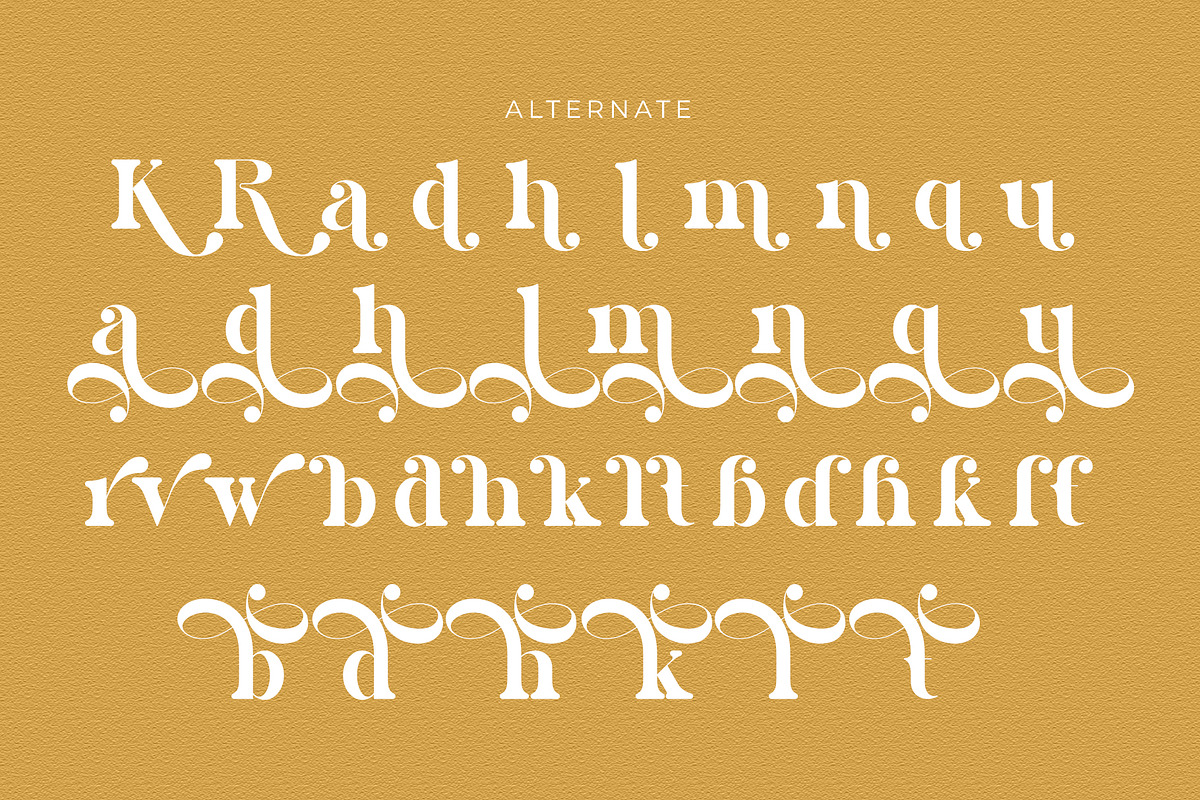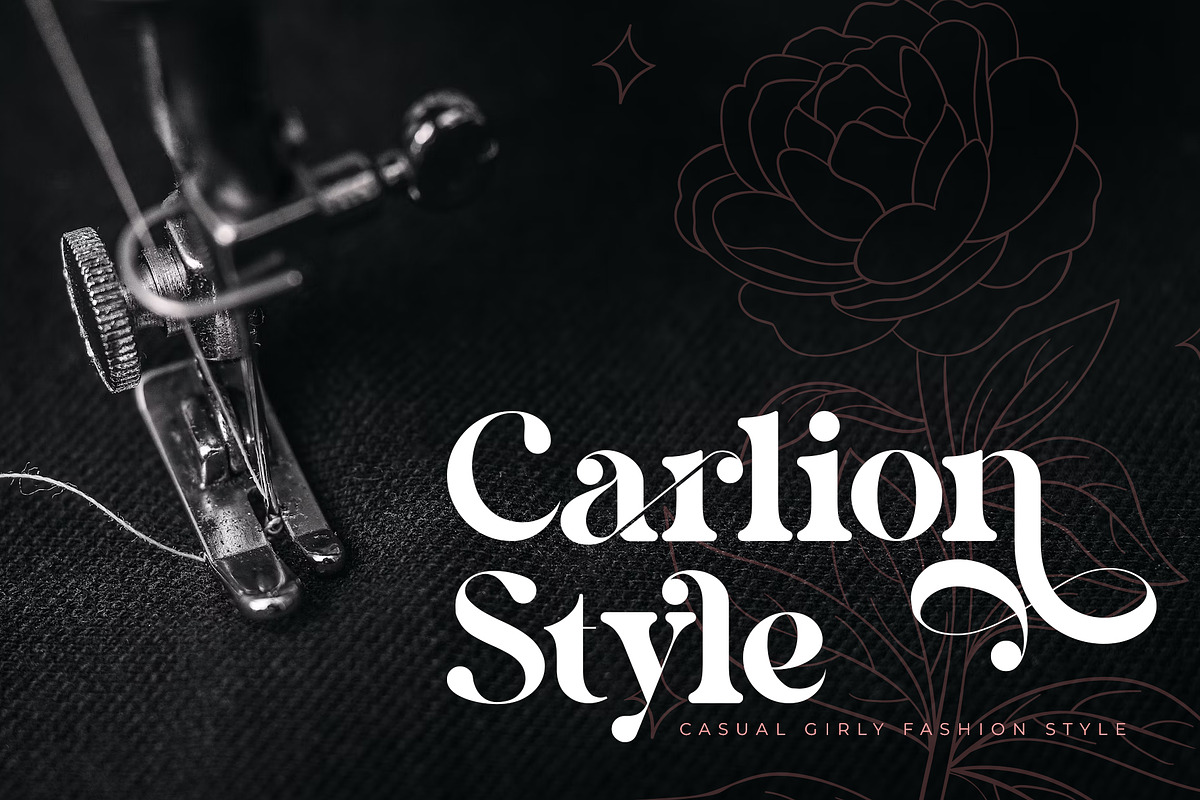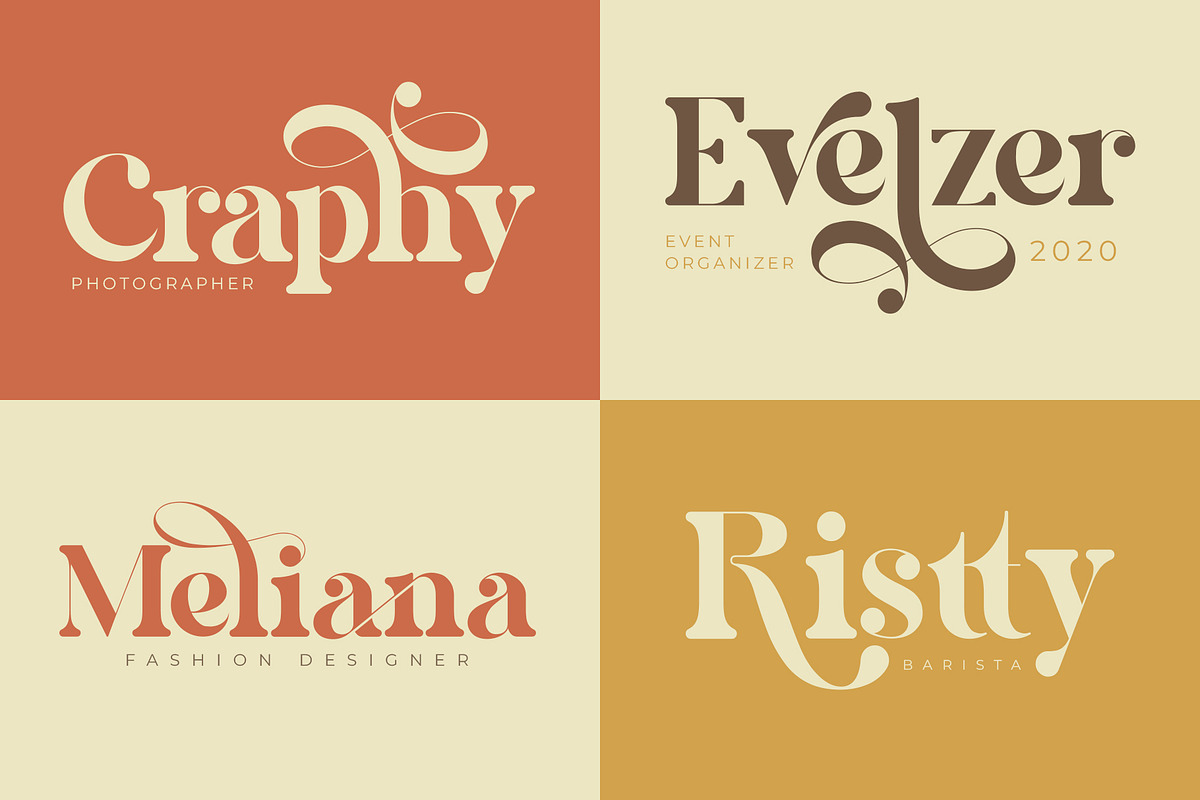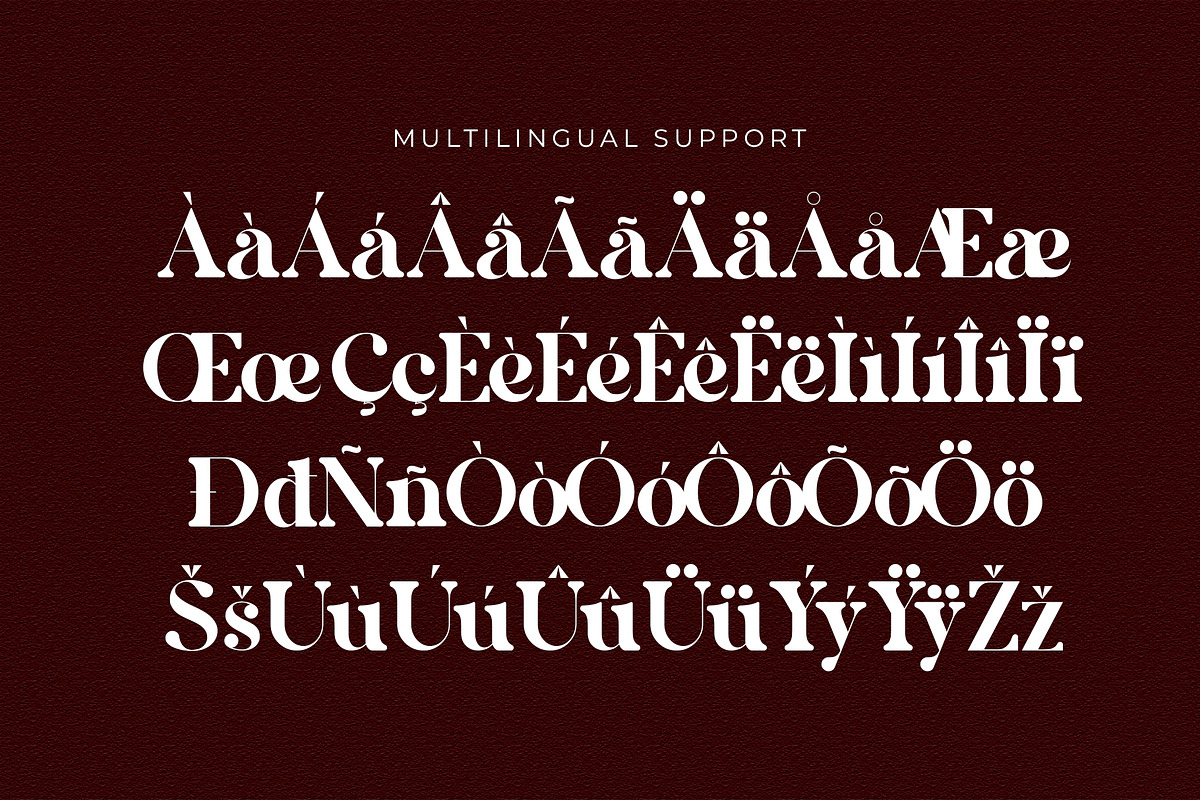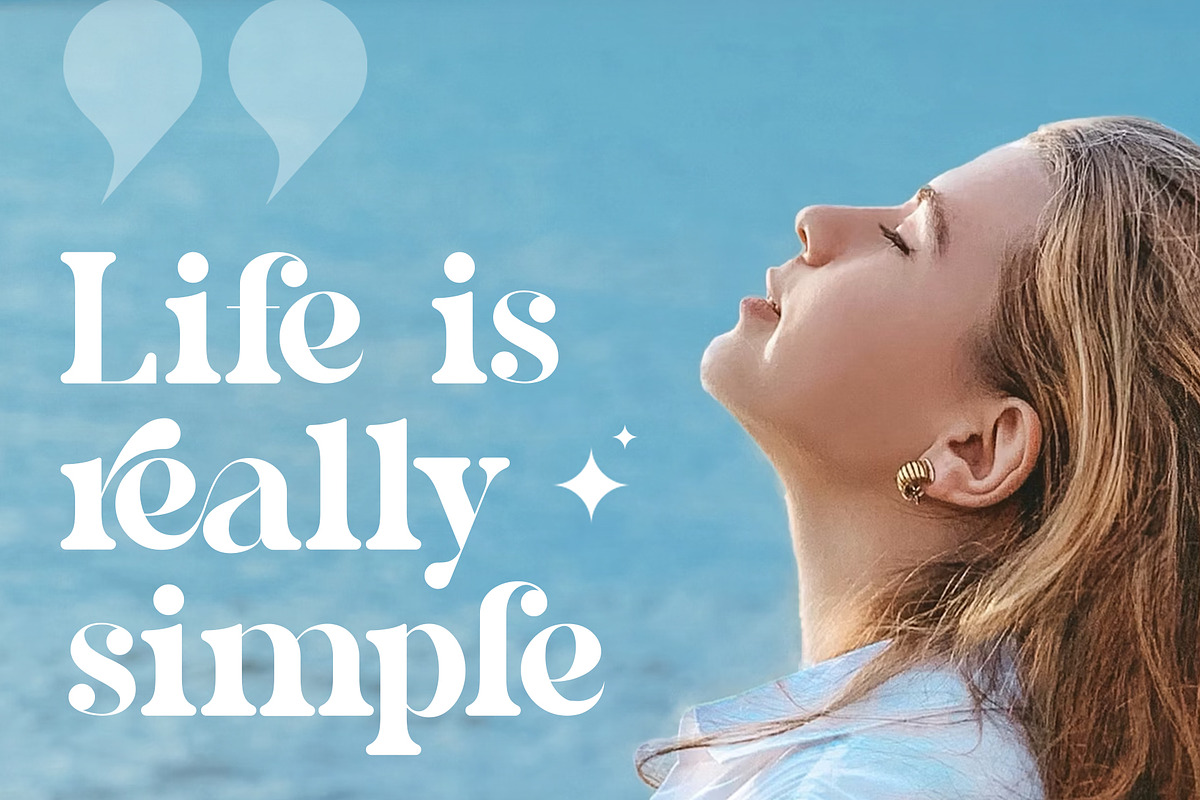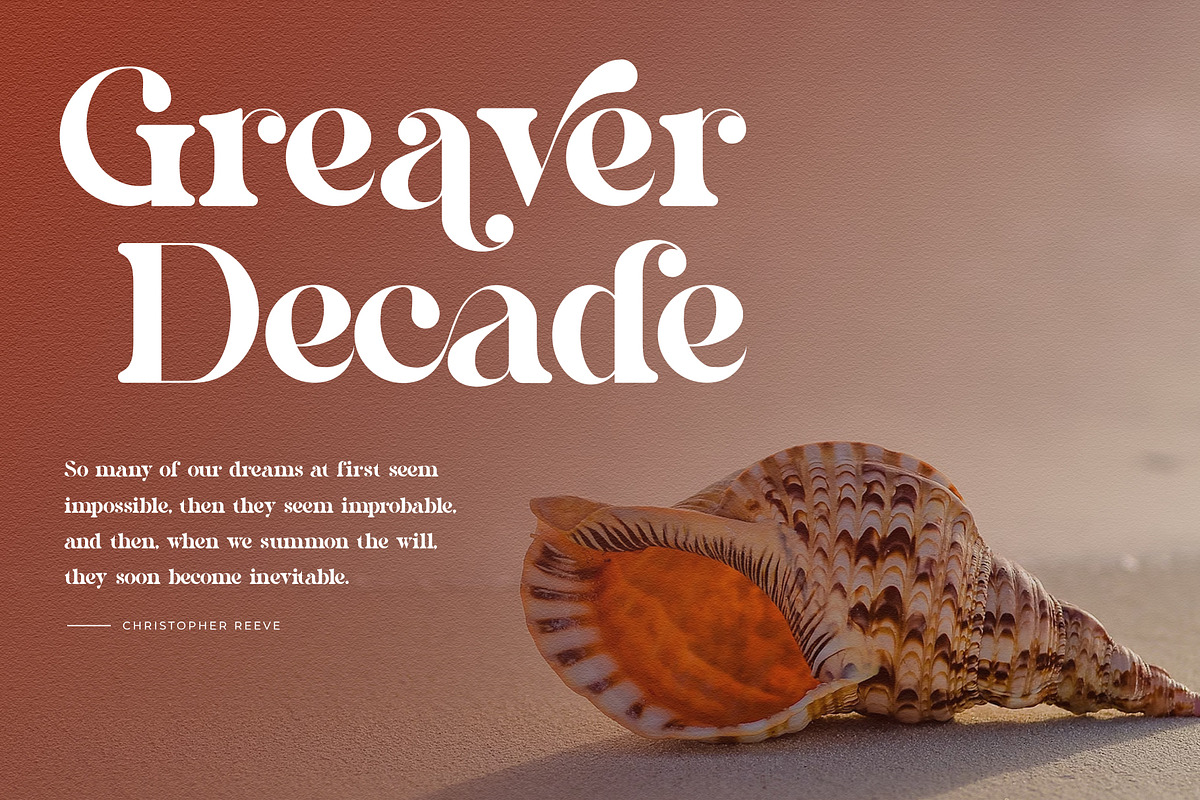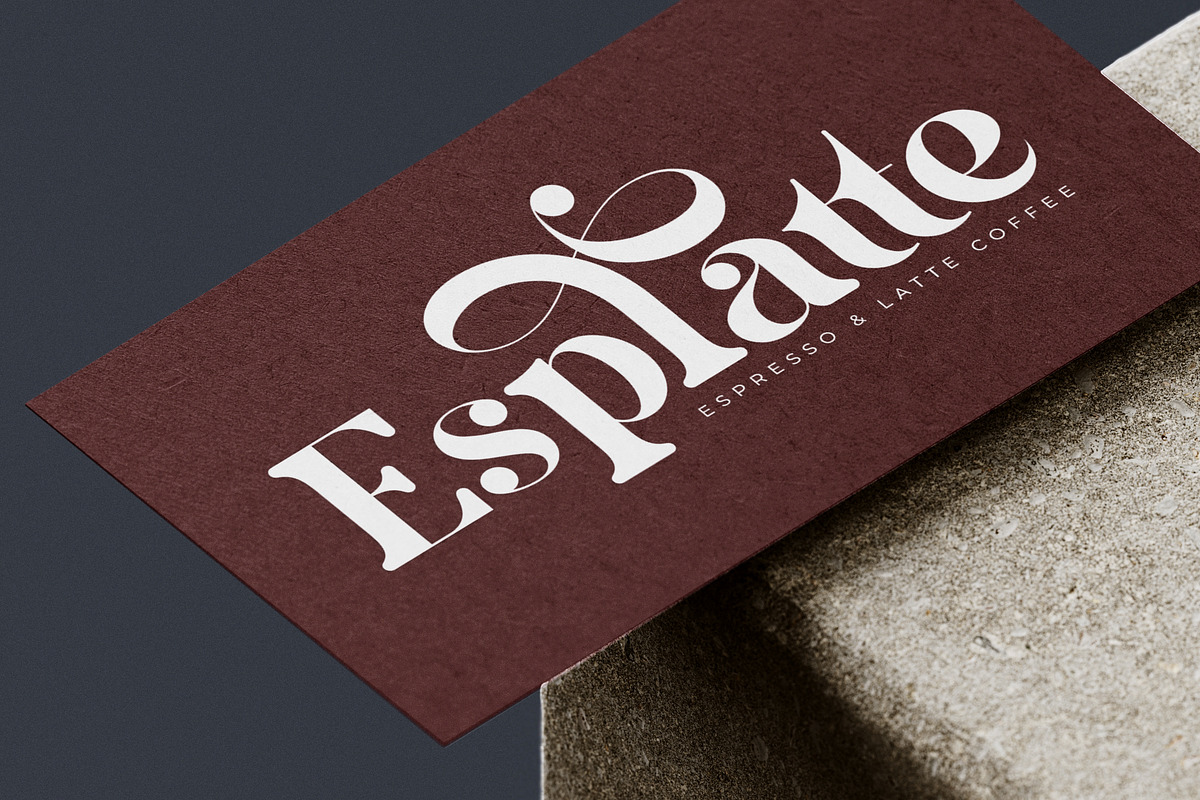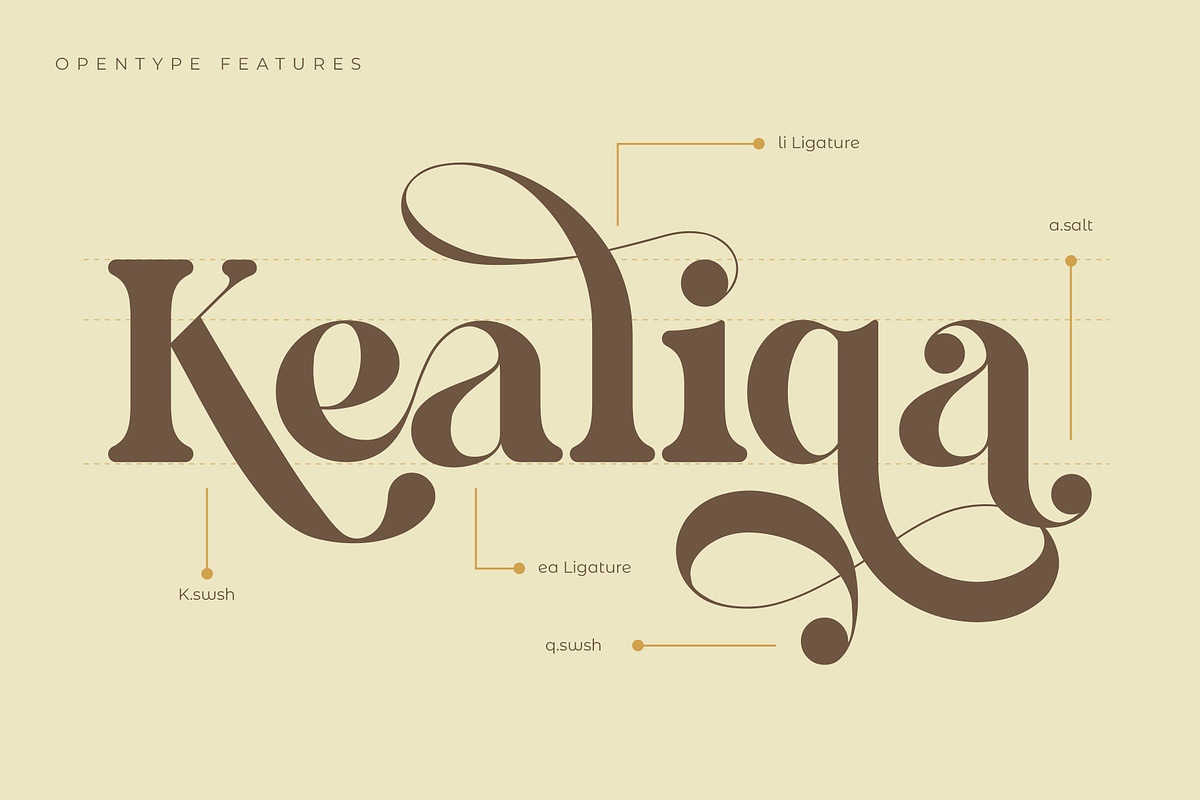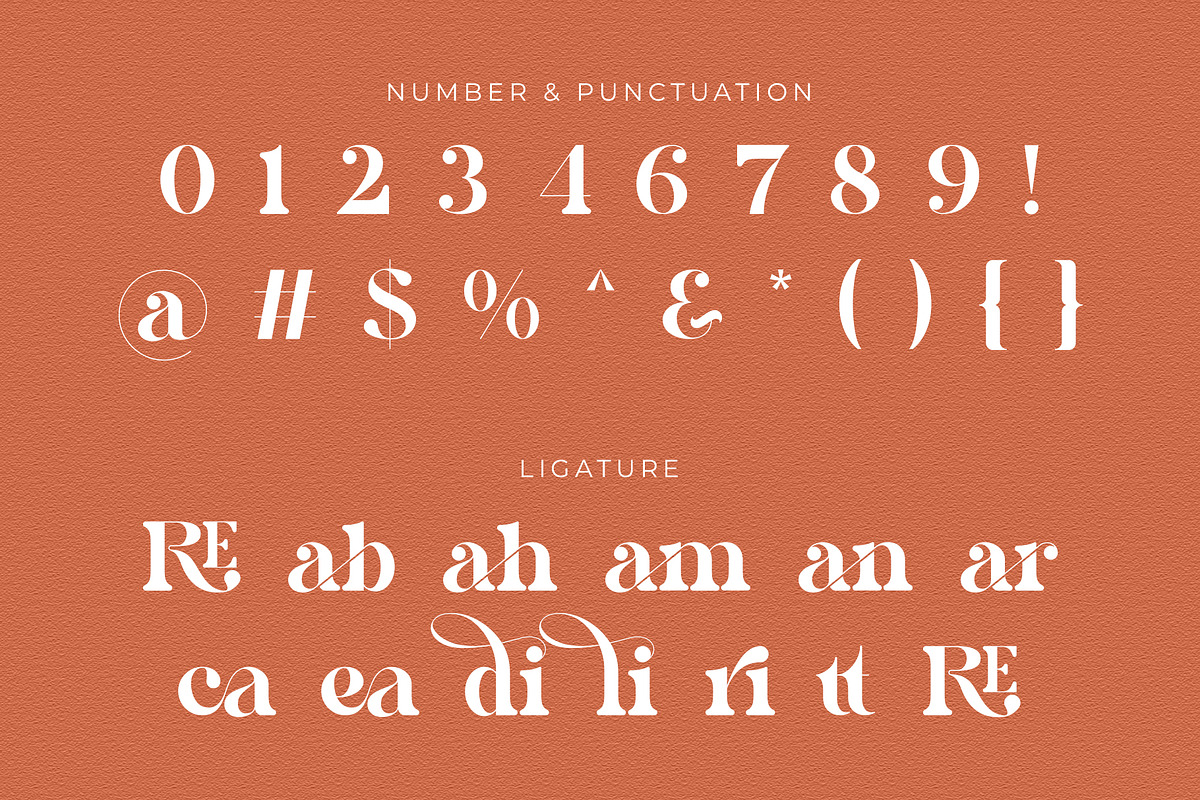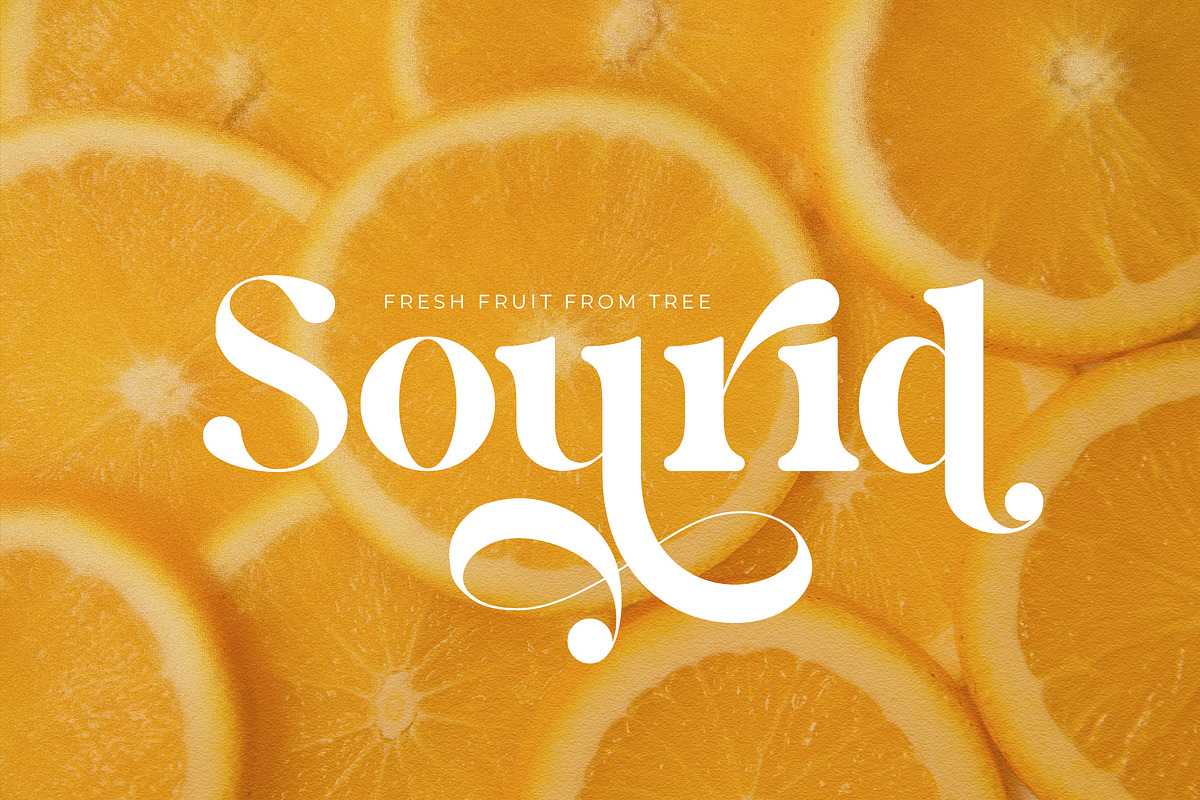
Retolia Retro Serif Font
Retolia Retro Serif is a balanced, smooth, elegant and stylish retro serif font. He has a beautiful character. Very suitable to be combined with invitation card designs, company logos, film titles, film names, business cards, book titles, brand names and various other designs. Retolia Retro Serif is a smooth serif font that exudes sophistication and elegance. Its stylish alternation and binding make this font the perfect partner for any project.